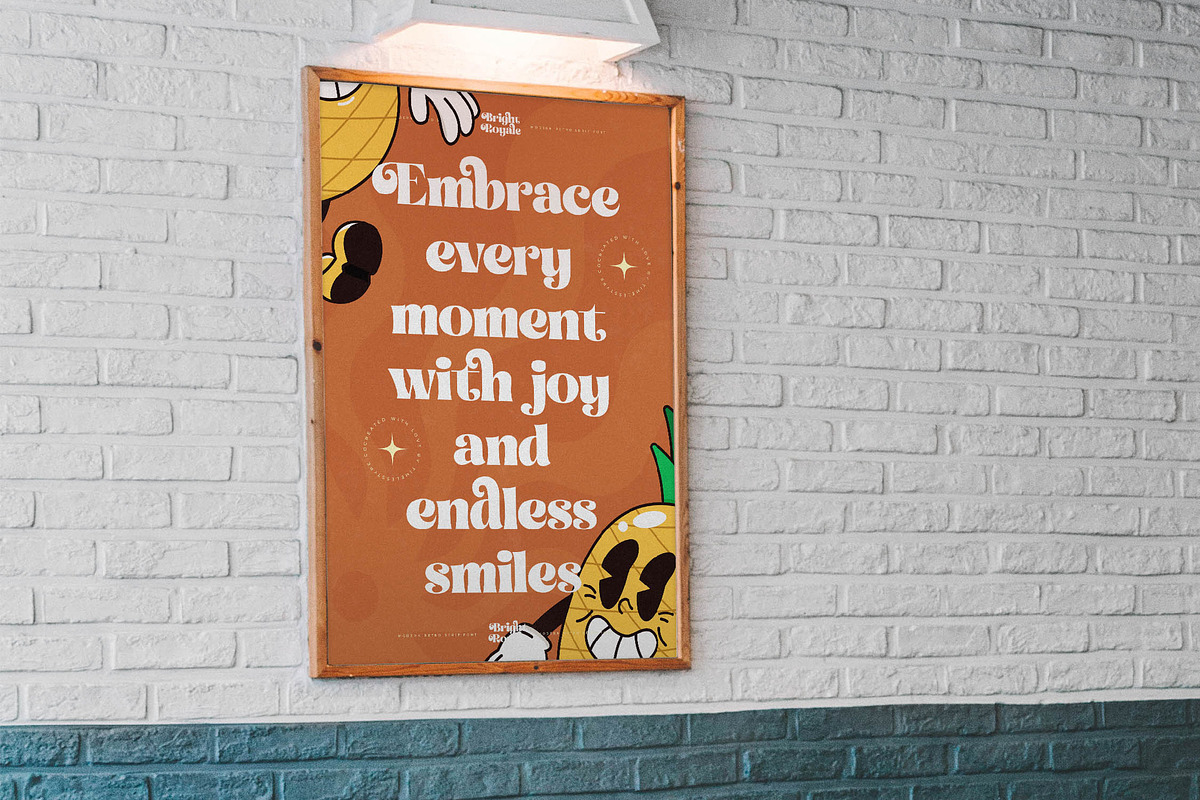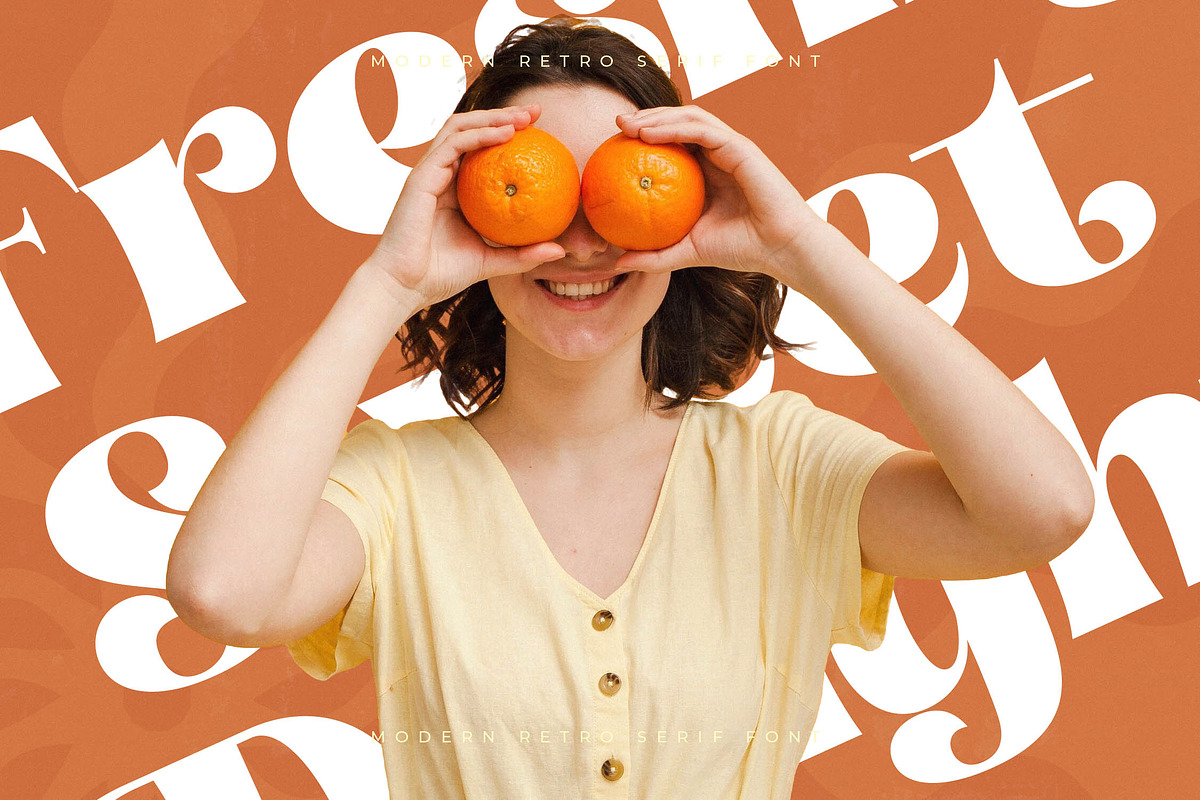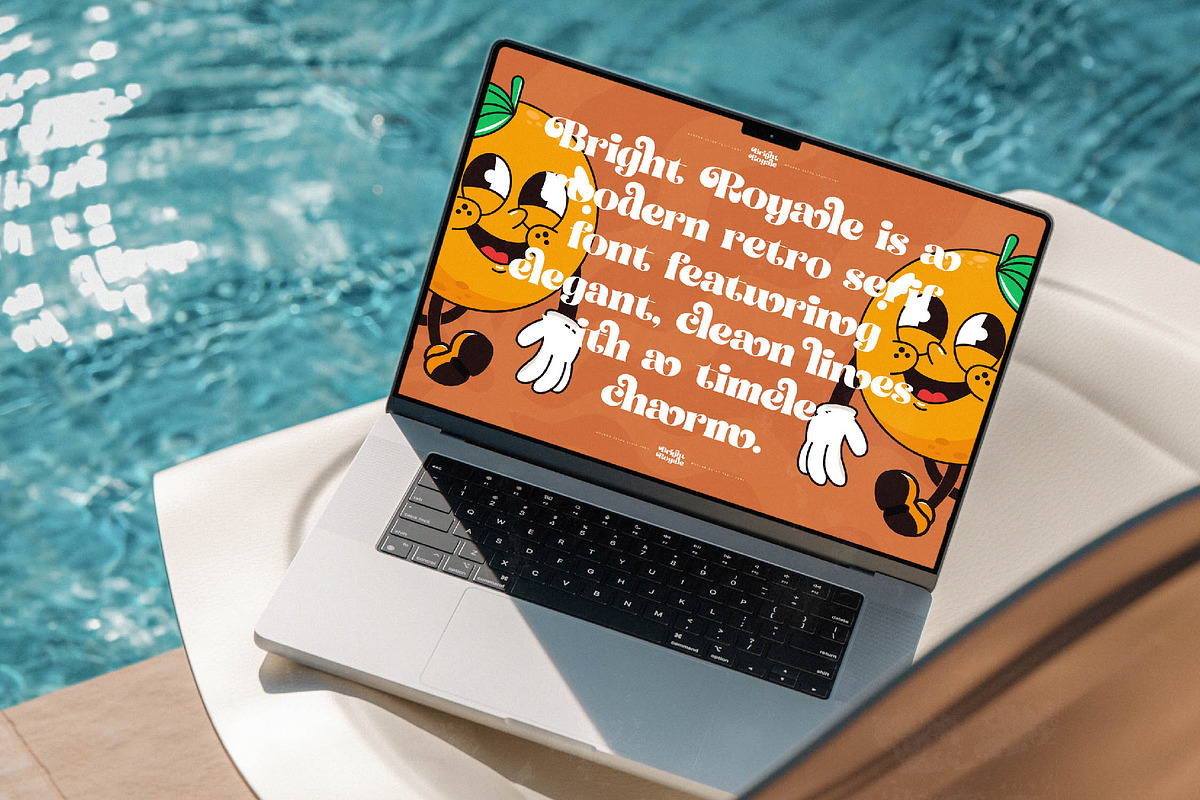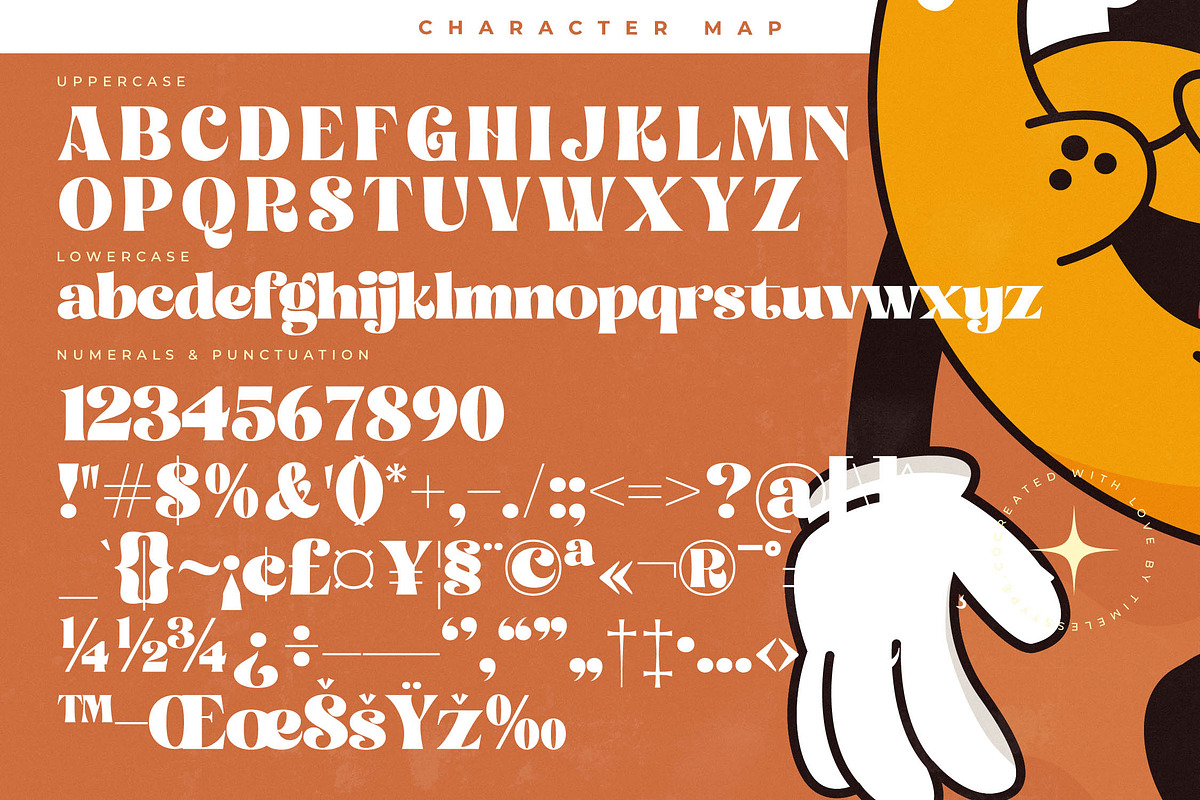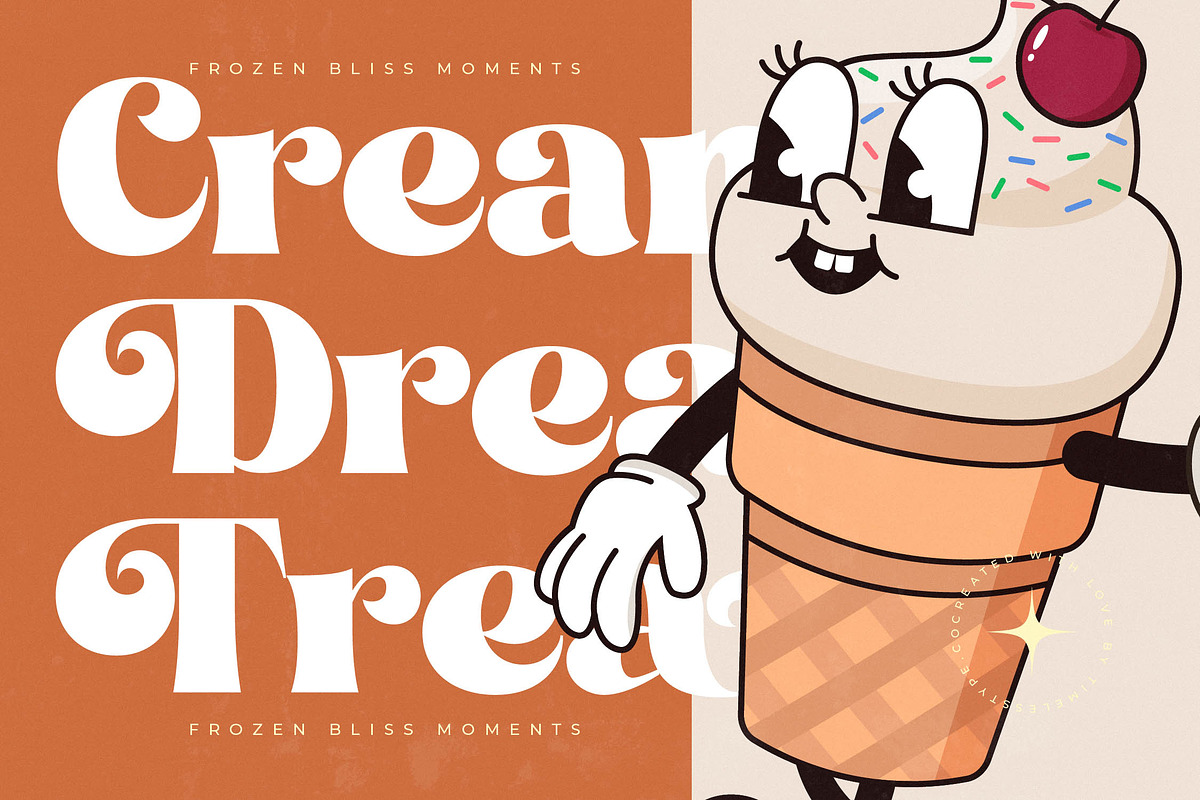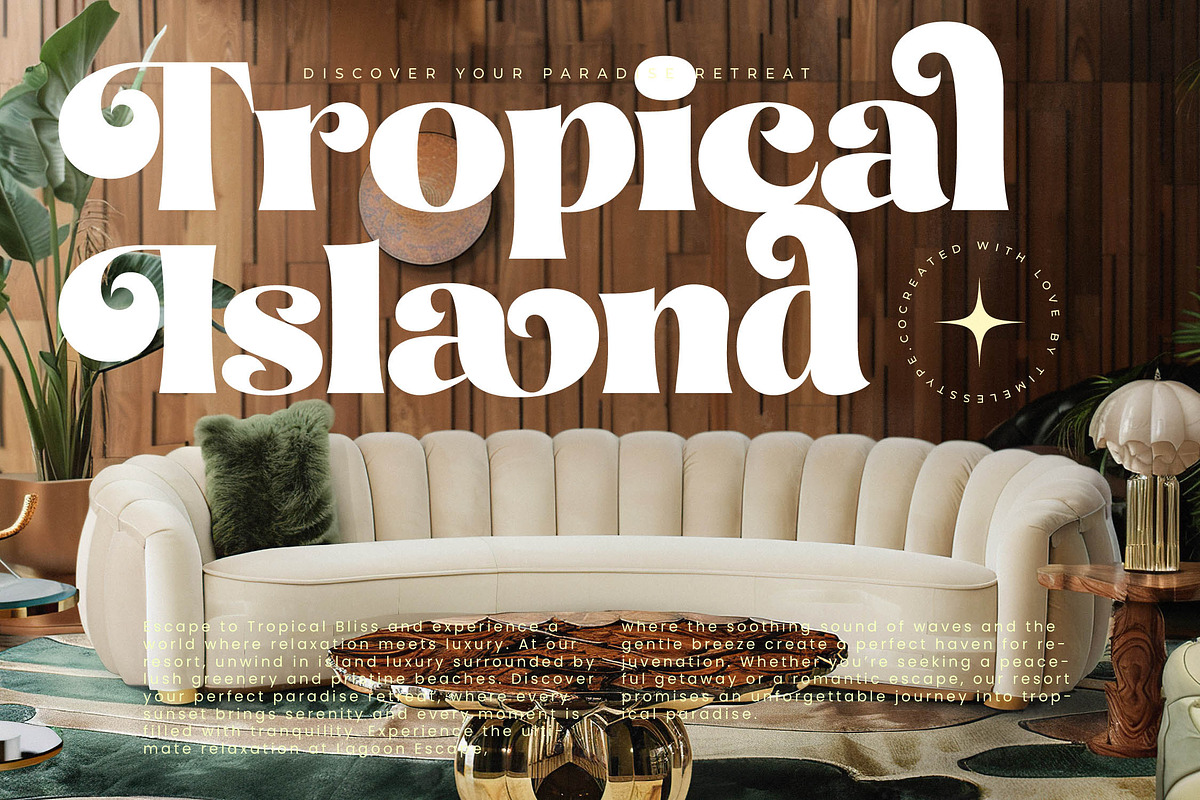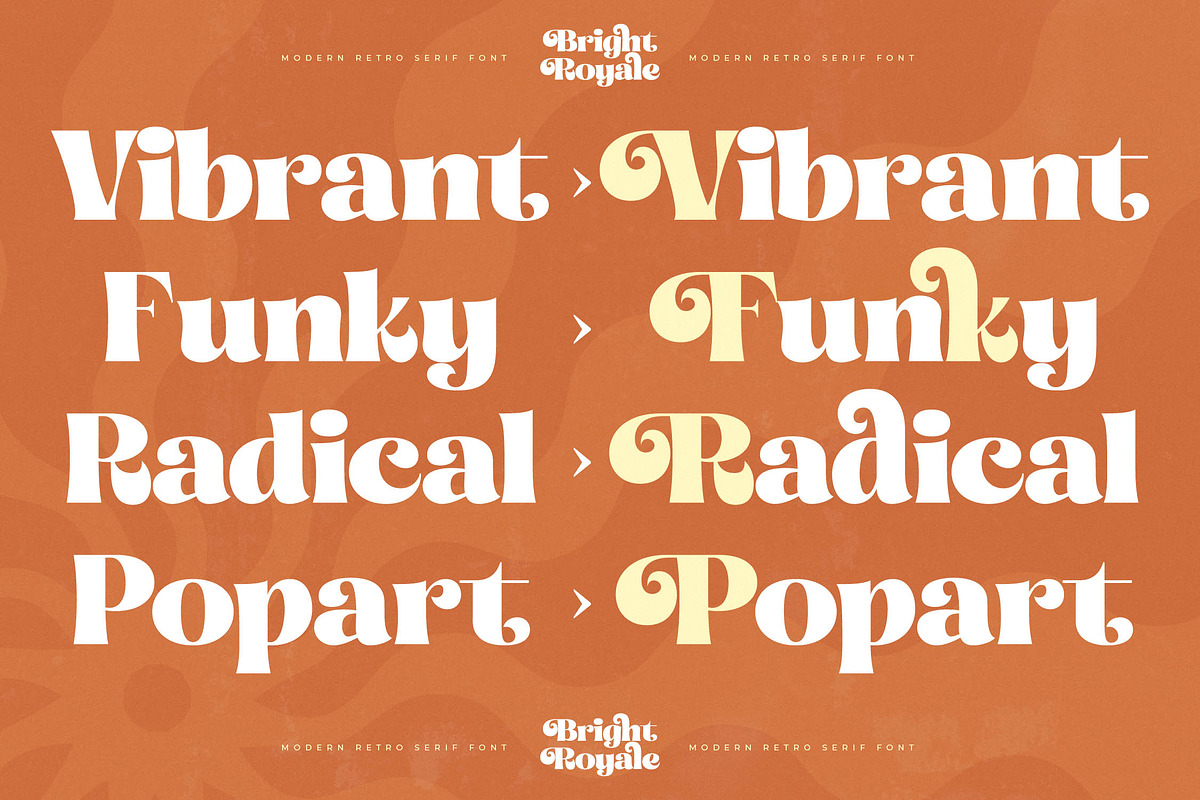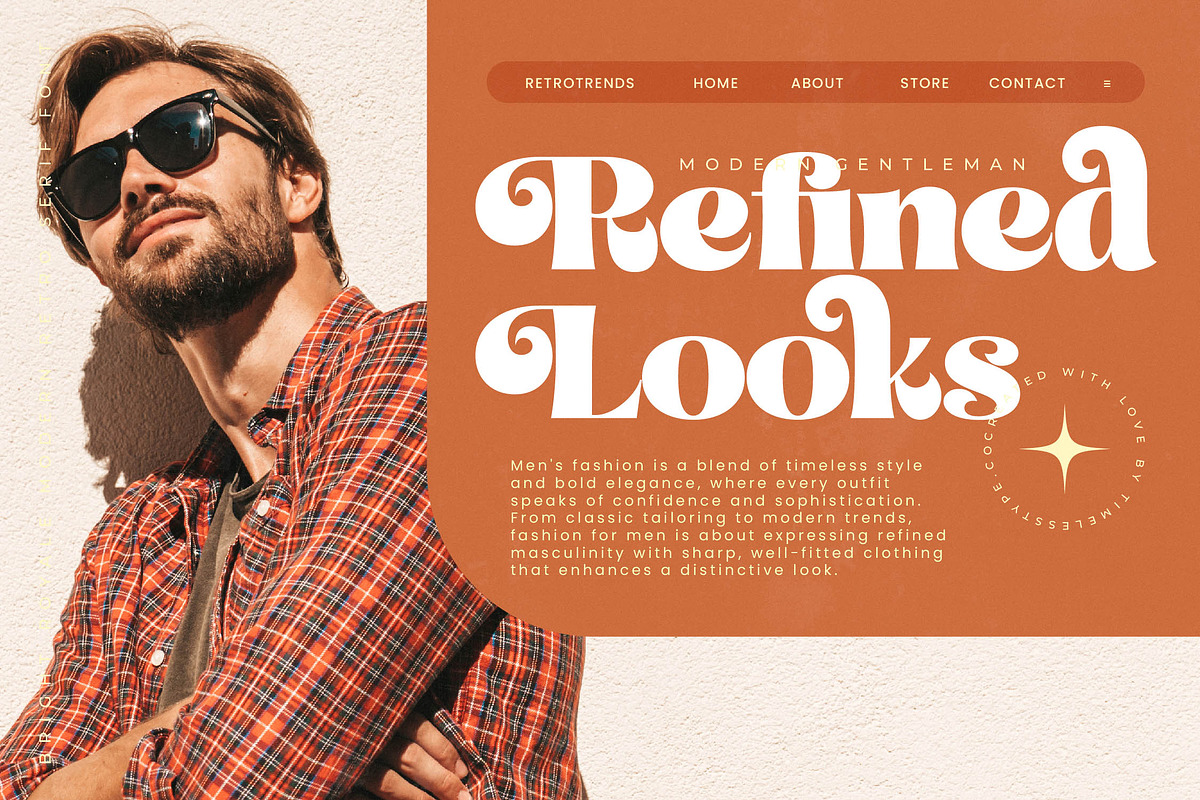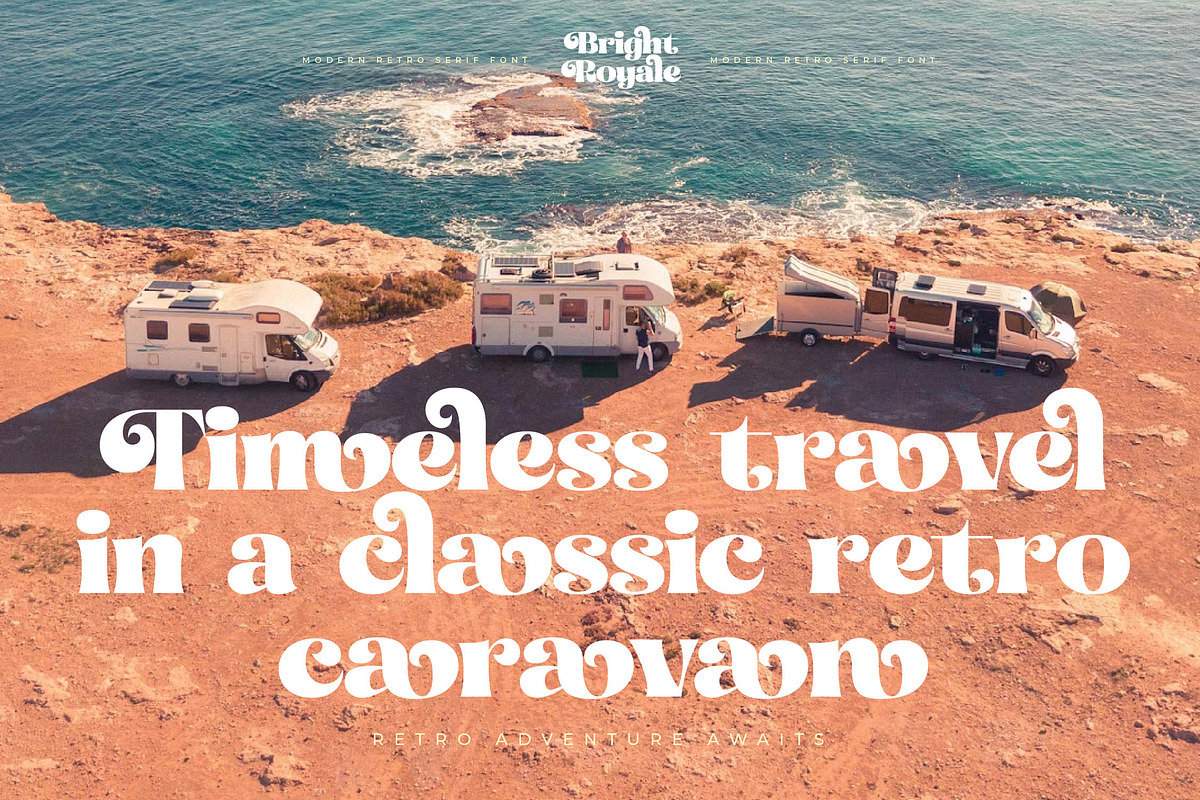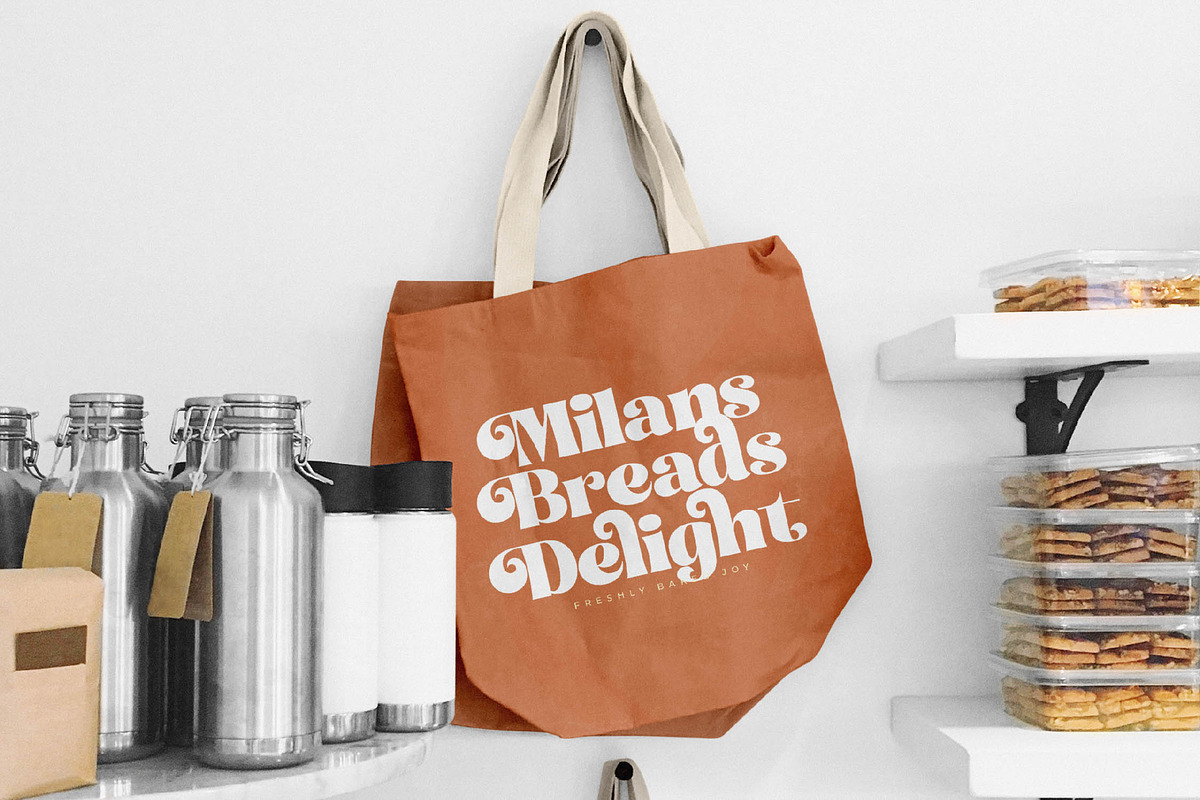
Bright Royale - Modern Retro Serif
Step into a world where nostalgia meets contemporary flair with the exquisite Bright Royale, a font designed to turn heads. This typeface captures a perfect balance of playful energy and sophisticated grace for your next big project.
Inspired by the golden era of 1970s advertising and groovy vintage packaging, this font evokes memories of sun-drenched afternoons and classic vinyl covers. It draws upon the whimsical nature of retro cartoon aesthetics while maintaining a sharp, professional edge suitable for today's elite design standards.
Infuse your work with a modern serif display that commands attention through its luxury typography and striking high-contrast serif details. Every curve is crafted to deliver a powerful editorial font presence that ensures a massive branding impact regardless of the medium.
Staying ahead of the modern serif trend, this typeface perfectly aligns with the current shift towards editorial display fonts that prioritize personality. It celebrates the resurgence of character-driven typography, offering a unique voice in a sea of generic digital designs.
This versatile typeface is the ultimate choice for high-end logo design and comprehensive branding systems that need a touch of soul. From stylish editorial layouts and bold packaging concepts to romantic wedding stationery and avant-garde fashion lookbooks, it adapts seamlessly to your creative vision.
Unlock endless creative possibilities with a vast library of custom ligatures and unique alternates that allow for truly bespoke compositions. The set also includes decorative swashes, comprehensive multilingual support, and a wide range of international characters to serve a global audience.
- Ligature 20 Alternate 60